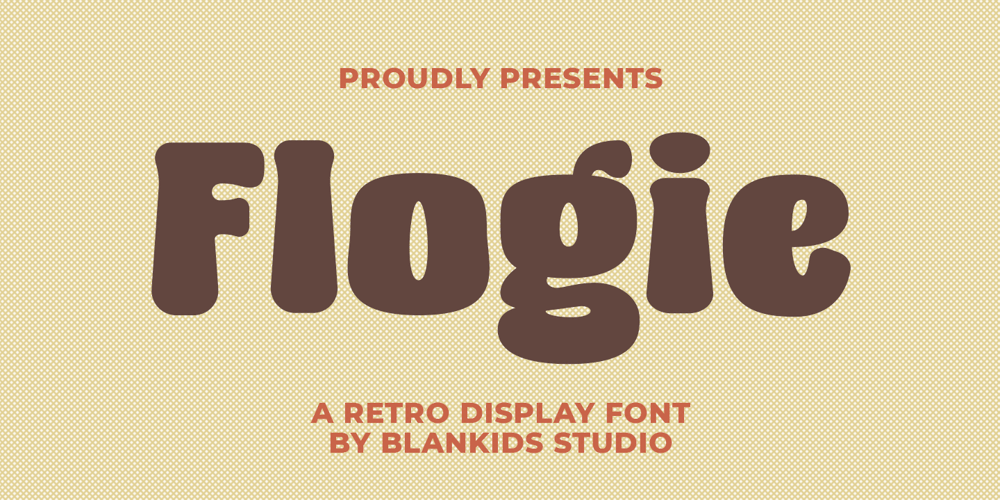
Flogie Font Family was designed by Bangkit Tri Setiadi and published by Blankids. Flogie contains 1 styles and family package options. Introducing Flogie – Your Gateway to Retro Elegance!Step into the nostalgic charm of the 70s and 80s with Flogie, a captivating blend of serif and sans serif styles. Bold, rounded, and exuding a distinct retro vibe, Flogie is the quintessential font choice for amplifying your vintage-inspired projects.With its thick strokes and rounded edges, Flogie effortlessly channels the groovy aesthetics of yesteryears, adding a timeless appeal to any design. Perfect for logotypes, branding, packaging, and various commercial products, Flogie injects a dose of retro charisma into every creative endeavor.Key Features: Retro-inspired serif/sans serif fusion. Thick, rounded strokes for a vintage aesthetic. Ideal for logotypes, branding, packaging, and more. Instantly elevates your designs with a groovy retro vibe. Versatile and perfect for various commercial projects.